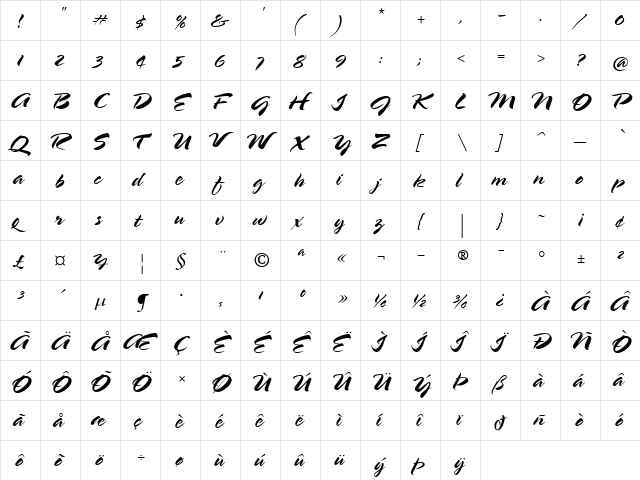
SpringLP RomanItalic
Design Context for SpringLP Typeface
SpringLP is a composed and adaptable typeface that performs quietly and consistently across a wide range of design contexts. The dynamic lean of this cut emphasises speed and emphasis in any layout.
Pro Tip: Try SpringLP for annotation and caption copy alongside an upright companion — the contrast in angle creates a dynamic but ordered typographic system.